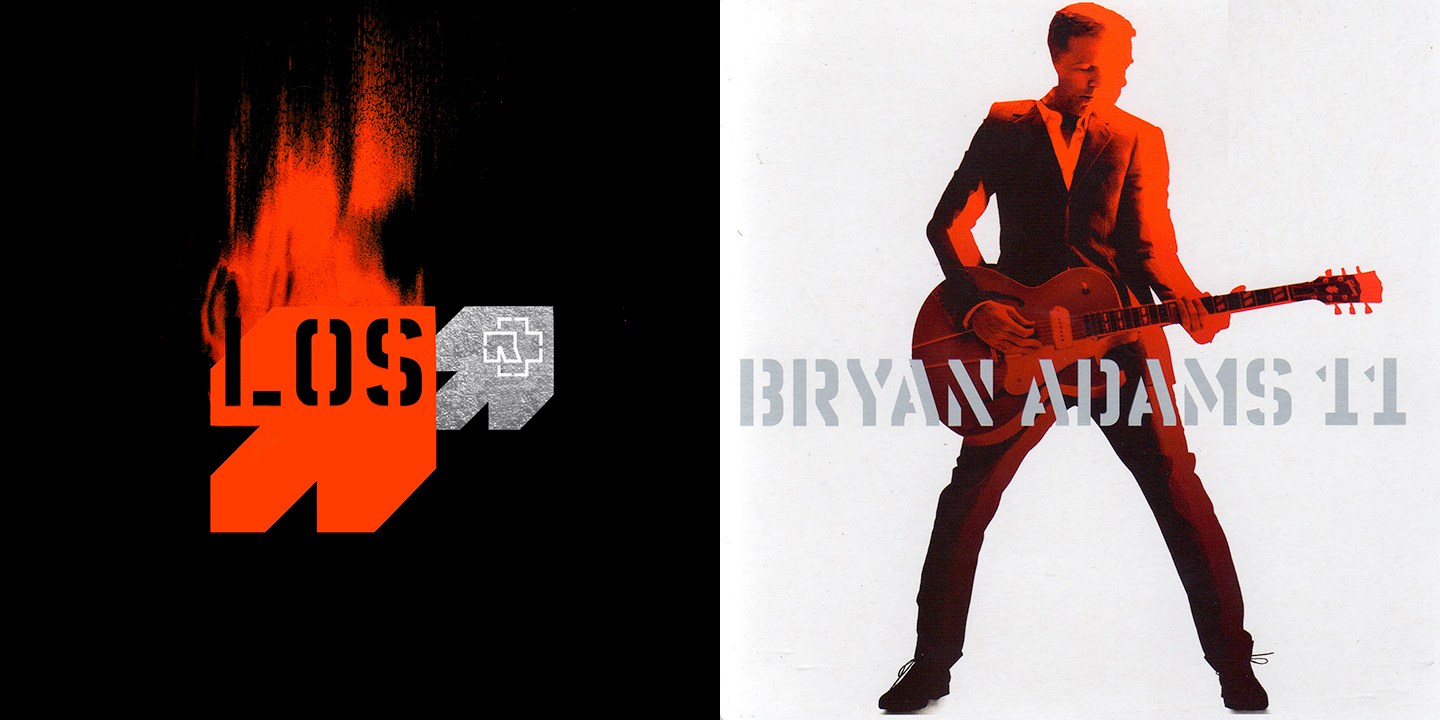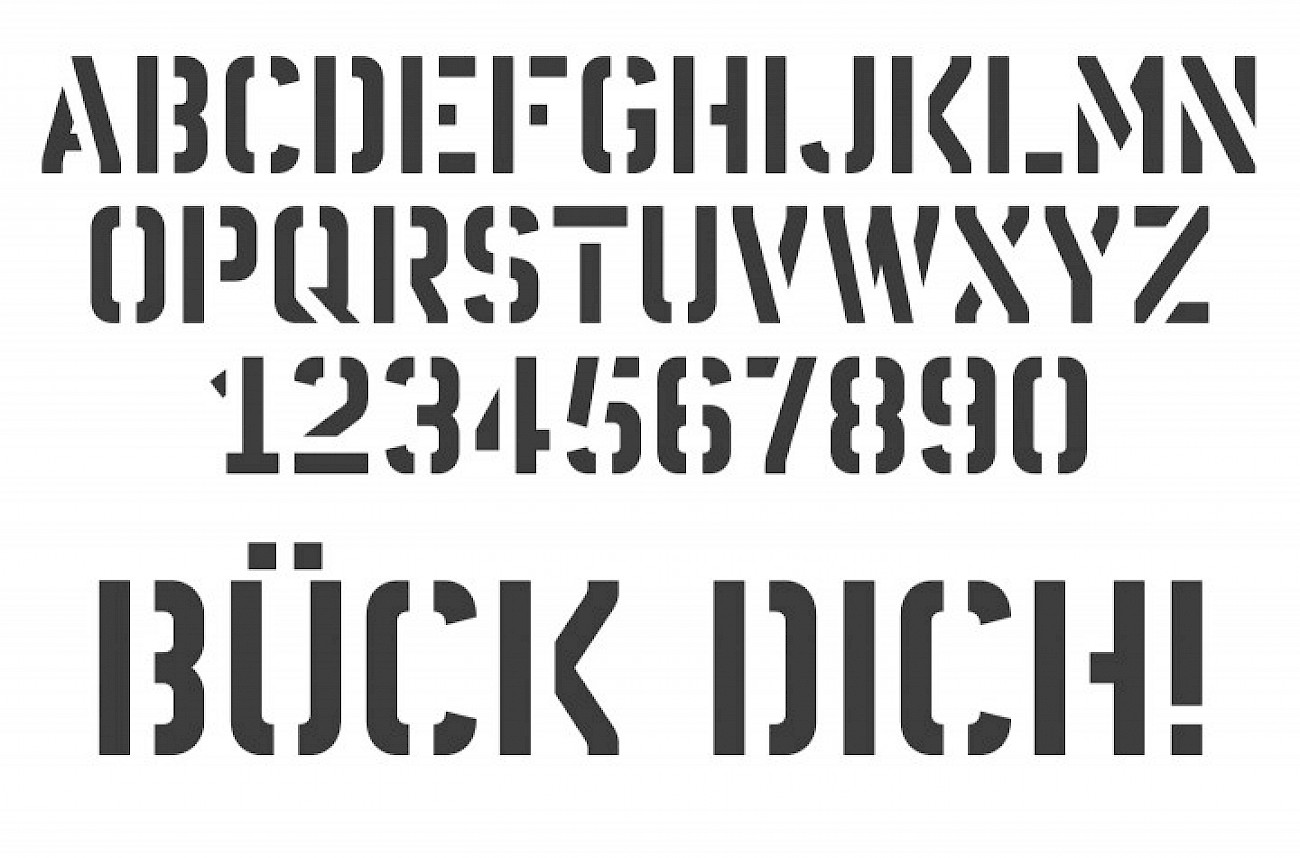
Rammstein / Bryan Adams
What do Bryan Adams and the Neue Deutsche Härte Band Rammstein have in common? The record sleeve designer! In this case Dirk Rudolph from Germany. He commissioned a stencil font for the tough guys from Rammstein, but was so pleased with it, that he used it for the much more sensitive Bryan Adams as well.
Viva Feuer frei! Viva Summer of ’69!